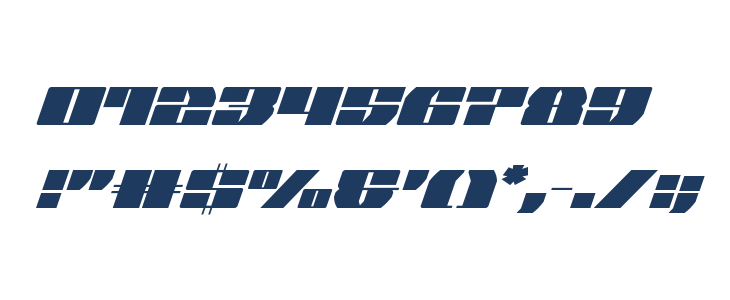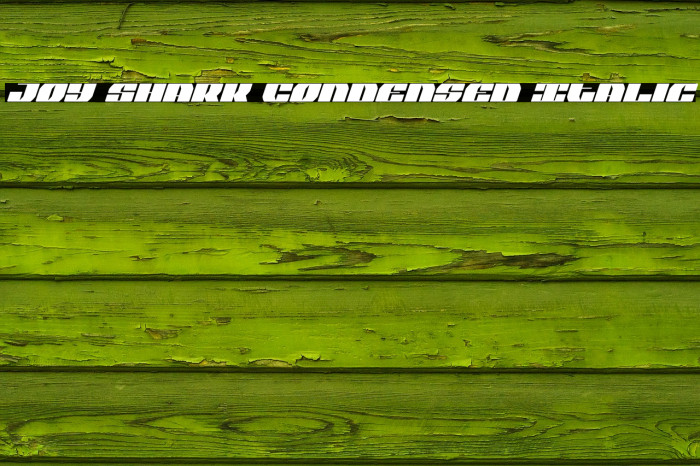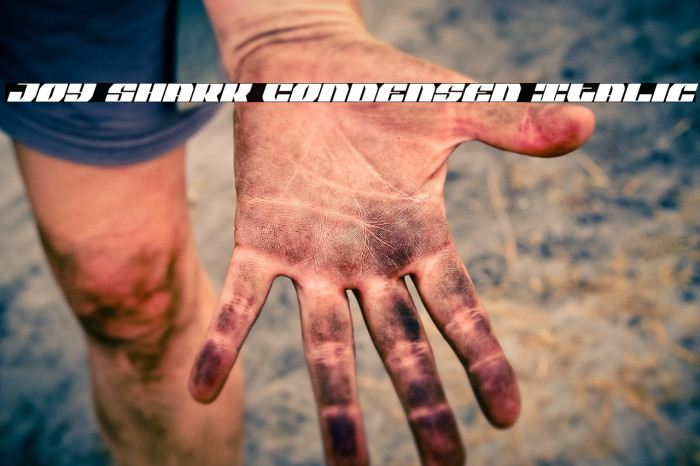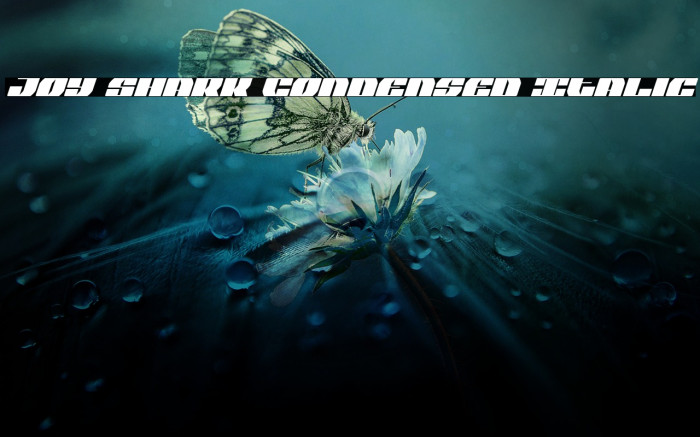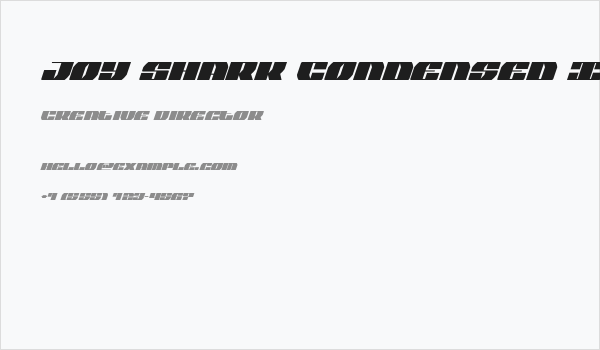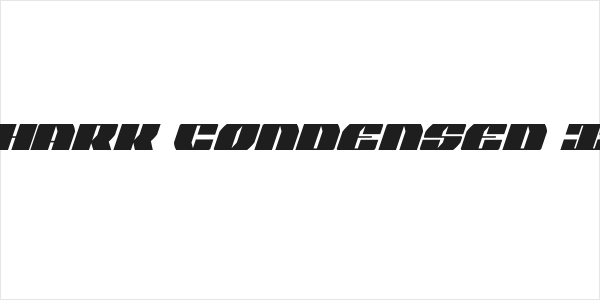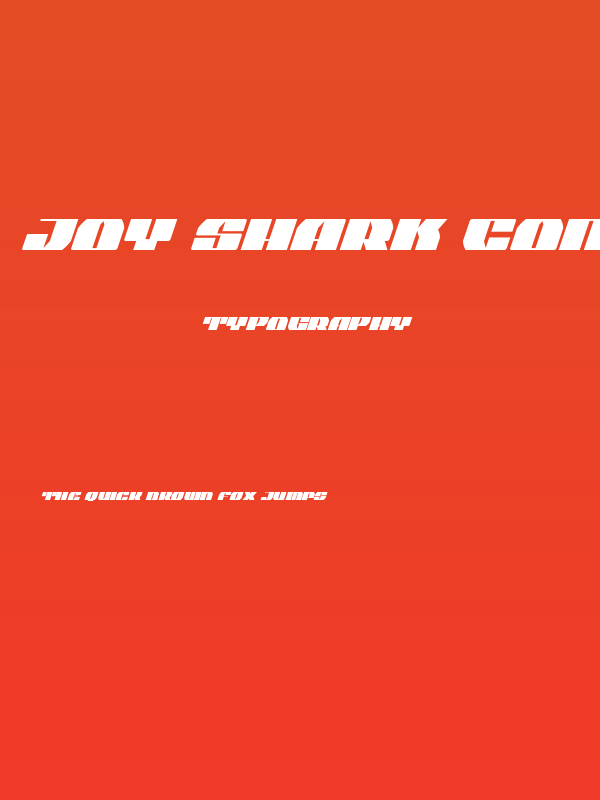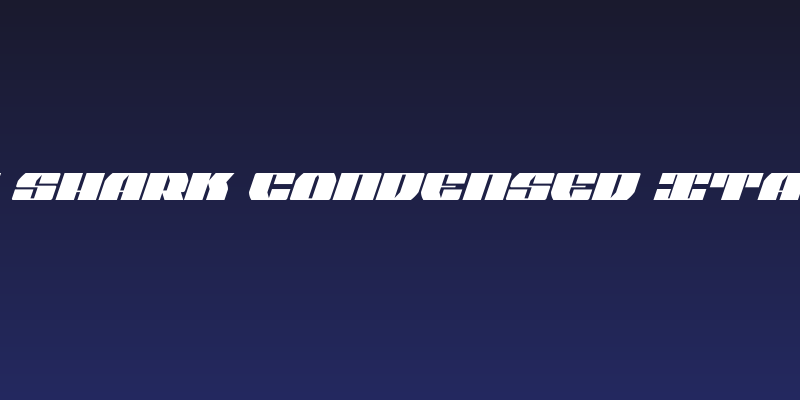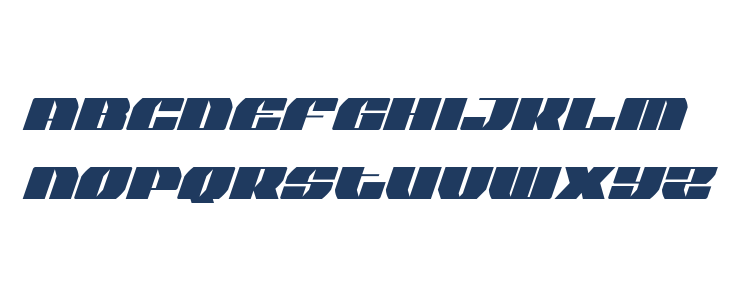
This font exhibits a bold and dynamic style with a condensed and italicized form. The characters are sharply angled, giving a sense of movement and energy. The uppercase and lowercase letters maintain a consistent slant, enhancing the italic effect. The numbers and special characters follow the same design principles, ensuring uniformity across all elements. The font's boldness is evident in its thick strokes, which are consistent throughout, providing a strong visual impact. The condensed nature of the font allows for efficient use of space, making it suitable for designs where space is limited but impact is necessary.
| Proposed Projects | Ideal for sports branding, dynamic posters, edgy advertisements, and modern logo designs. |